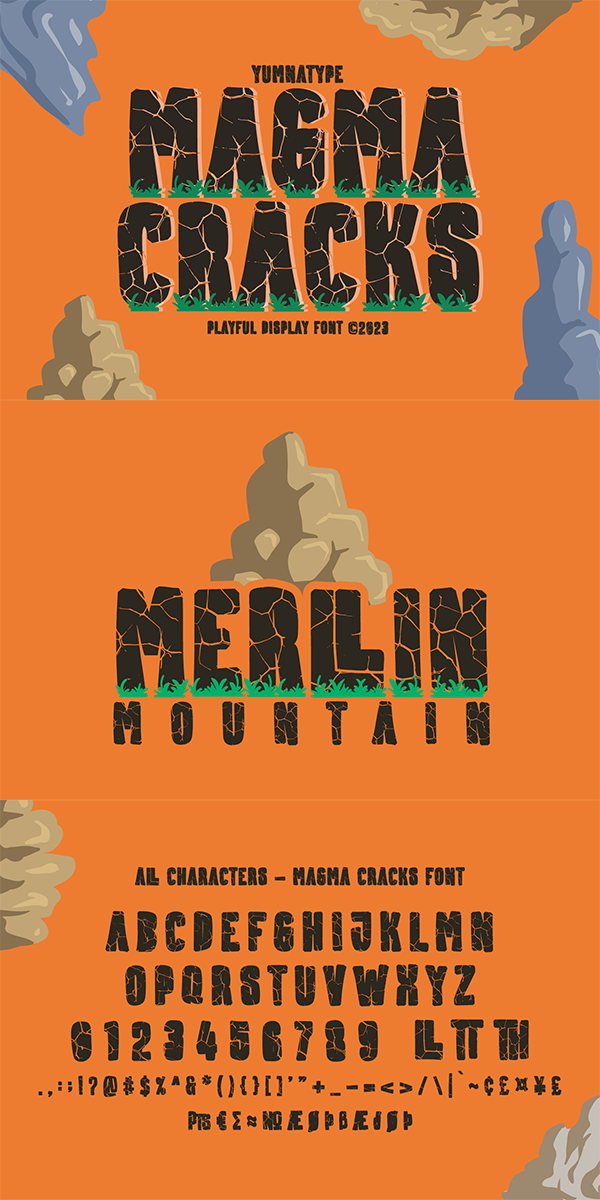
Magma Cracks Font
About Magma Cracks
Magma Cracks is a capitalized display font in a visually attractive design along with the big, round, high contrast, cracking letter designs as its unique characteristics. It is suitably applicable for any unique, different font designs to help you emphasize your messages in the graphic designs.
This font’s cracking designs can express dramatic, prominent nuances and give unique textures resulting in the artistic displays. Magma Cracks provides a clipart in accordance with the font theme as a bonus and features you can enjoy.
Magma Cracks fits best for various design projects, such as brandings, headings, magazine covers, quotes, printed products, merchandise, social media, etc. Find out more ways to use this font by taking a look at the font preview.